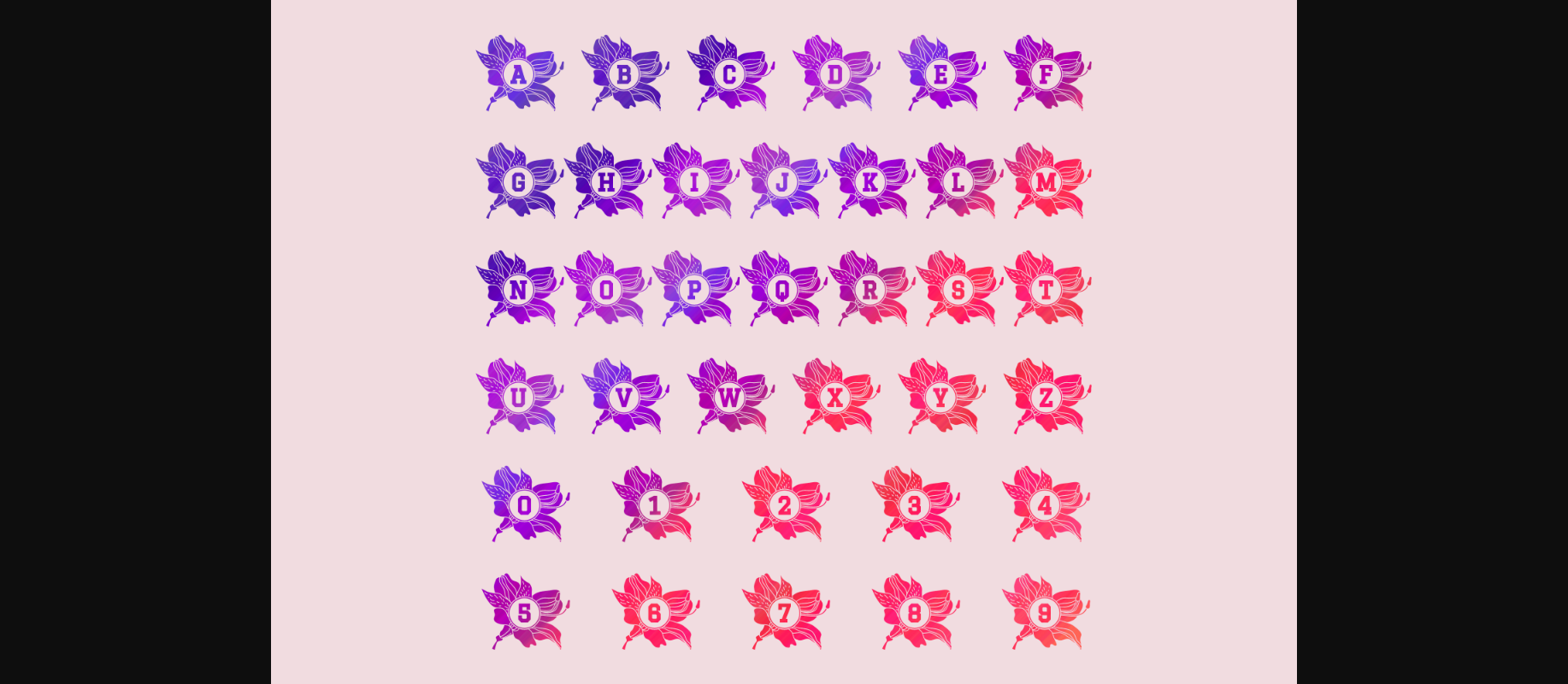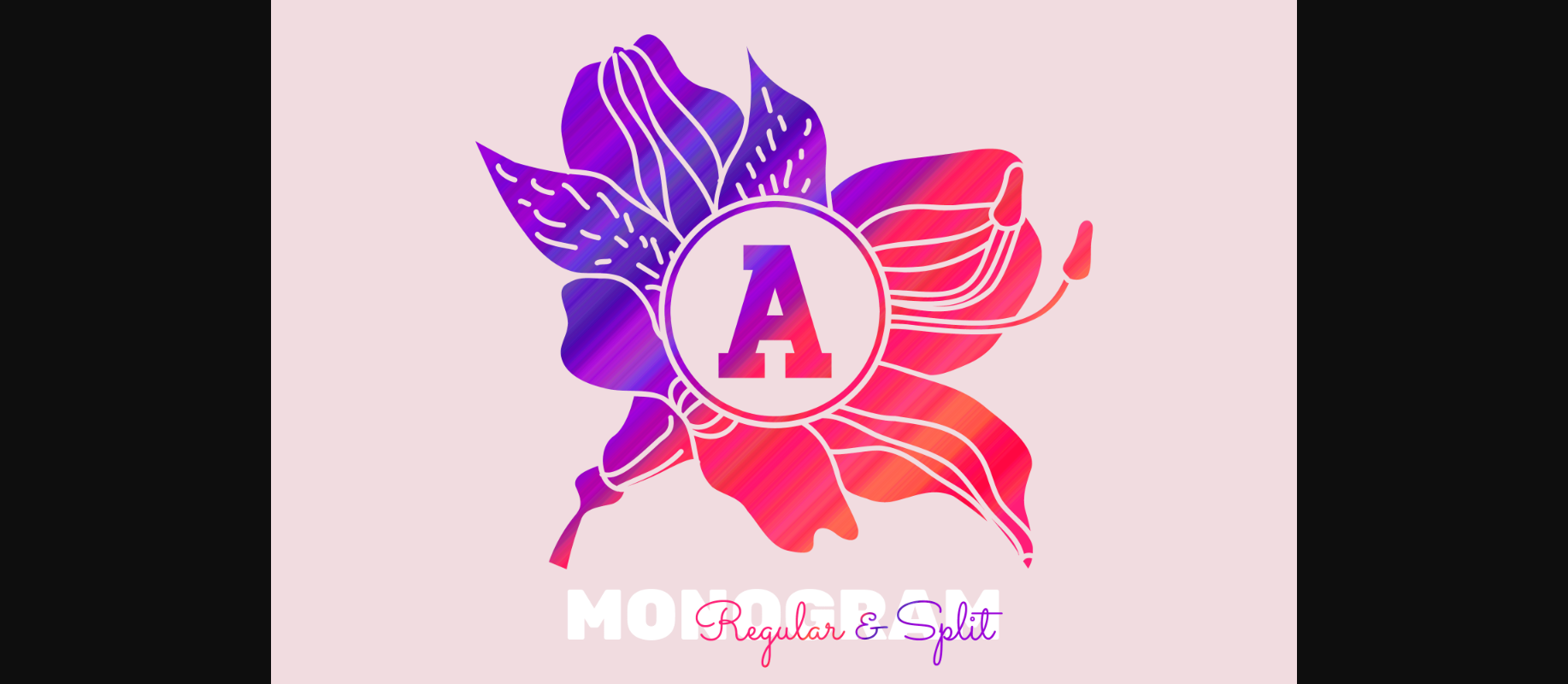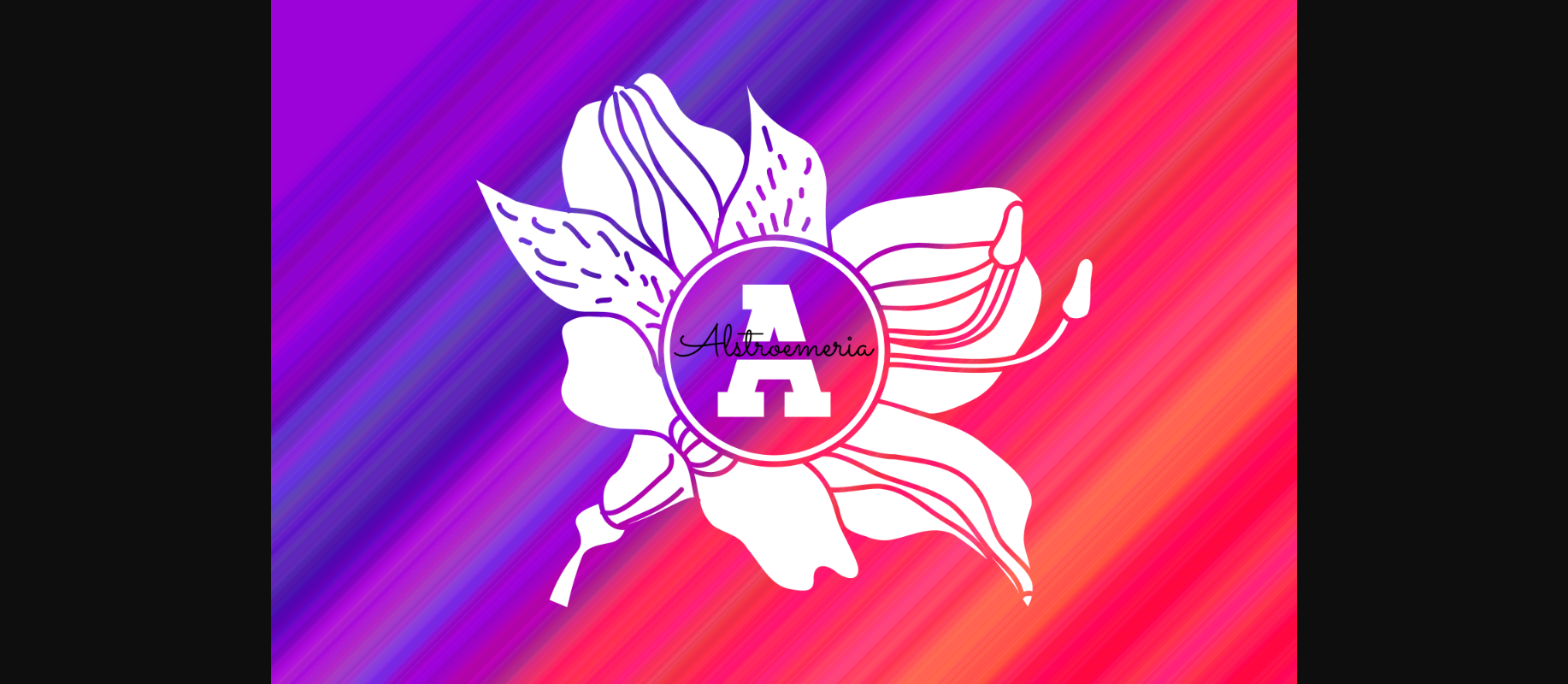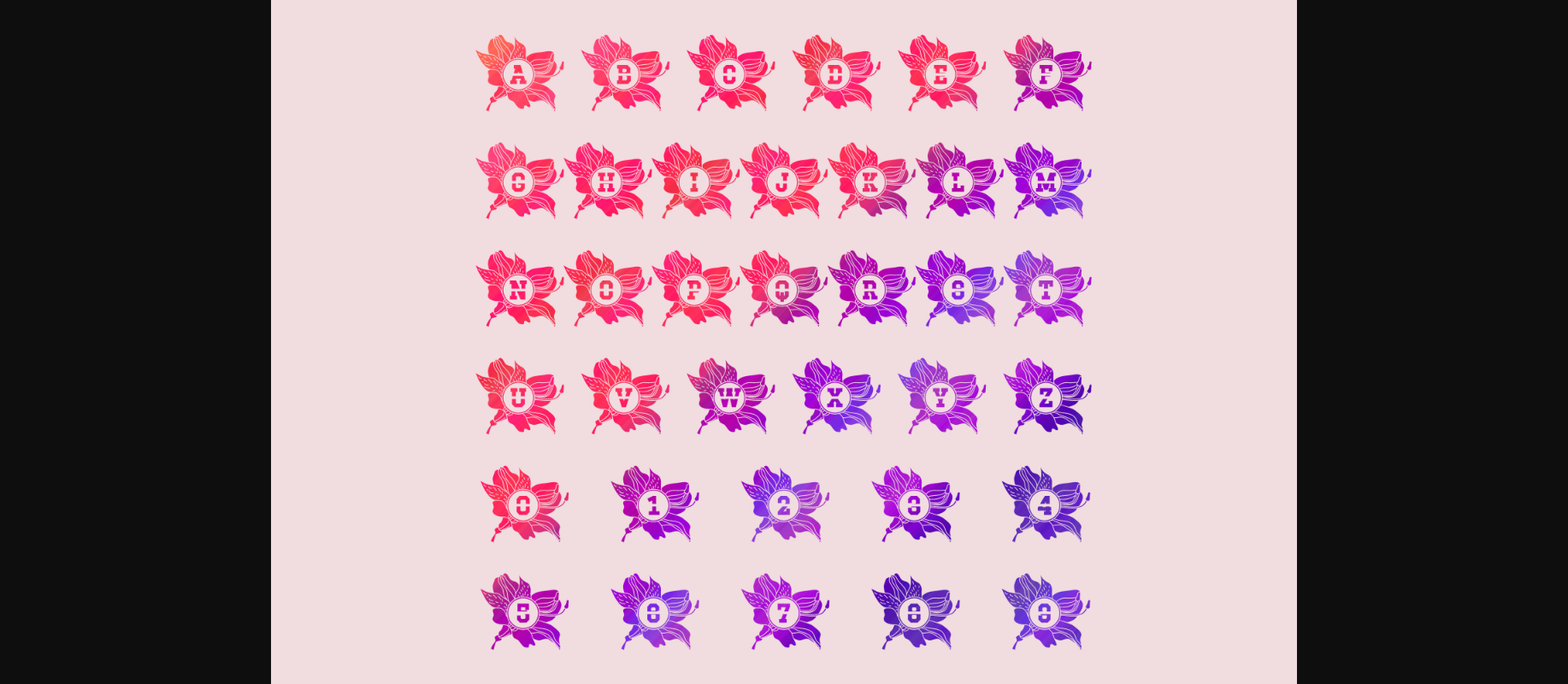
About Alstroemeria Font
Alstroemeria Monogram Duo is an elegant botanical decorative font consisting of duo styles (regular & split). This font is ideal for adding special decoration to your crafts. Whether you use it for custom designs, DIY crafts, or just any creation that requires a lovely touch, this font will be an amazing choice!